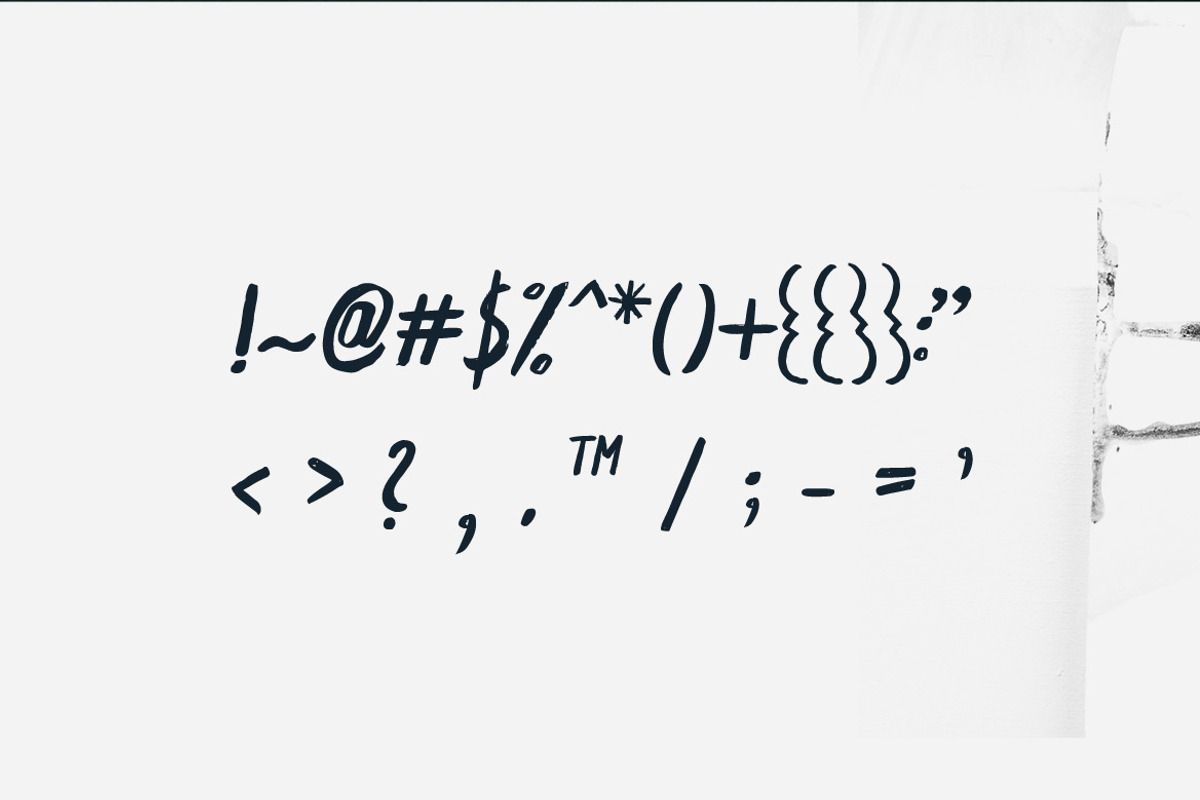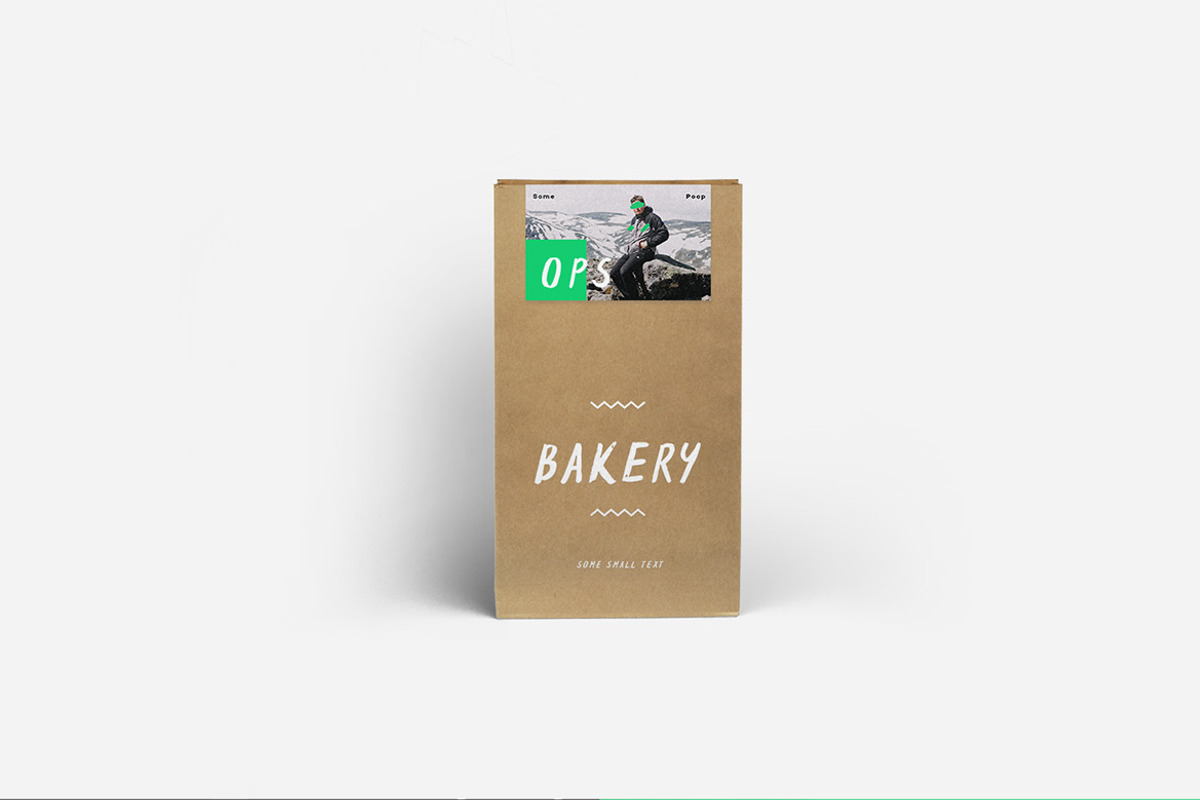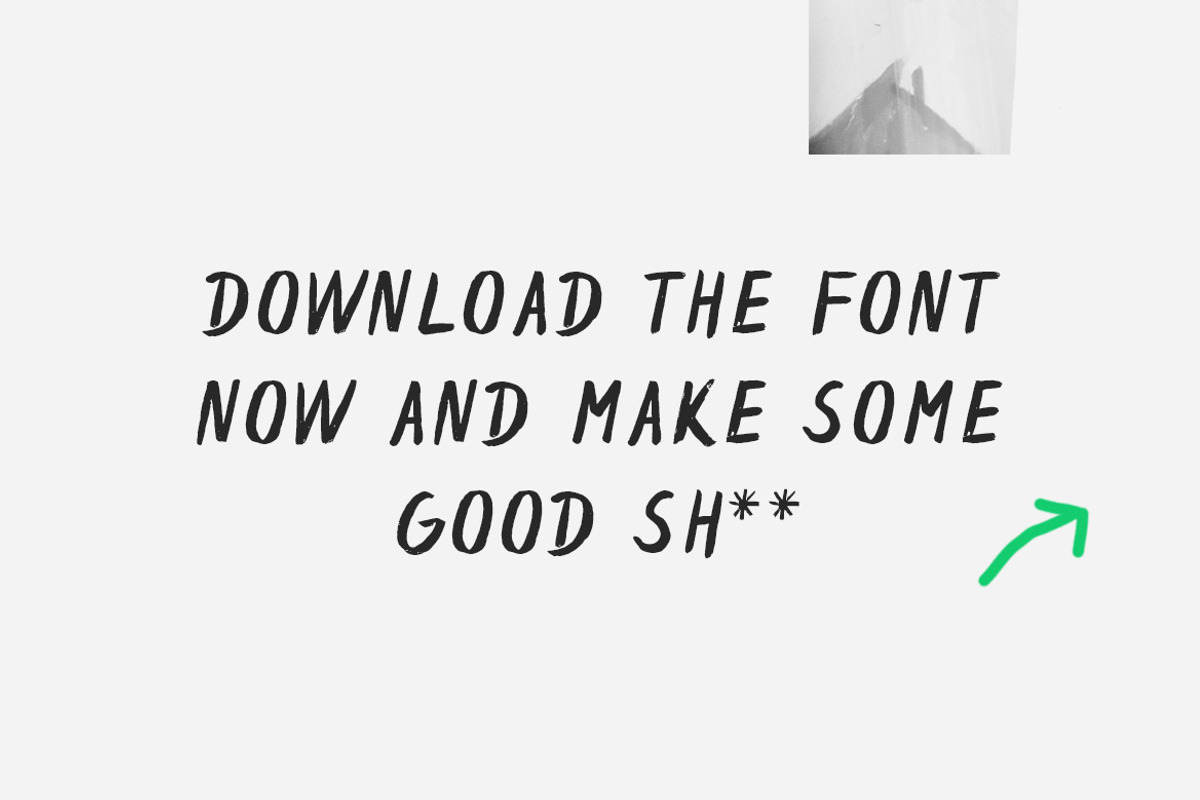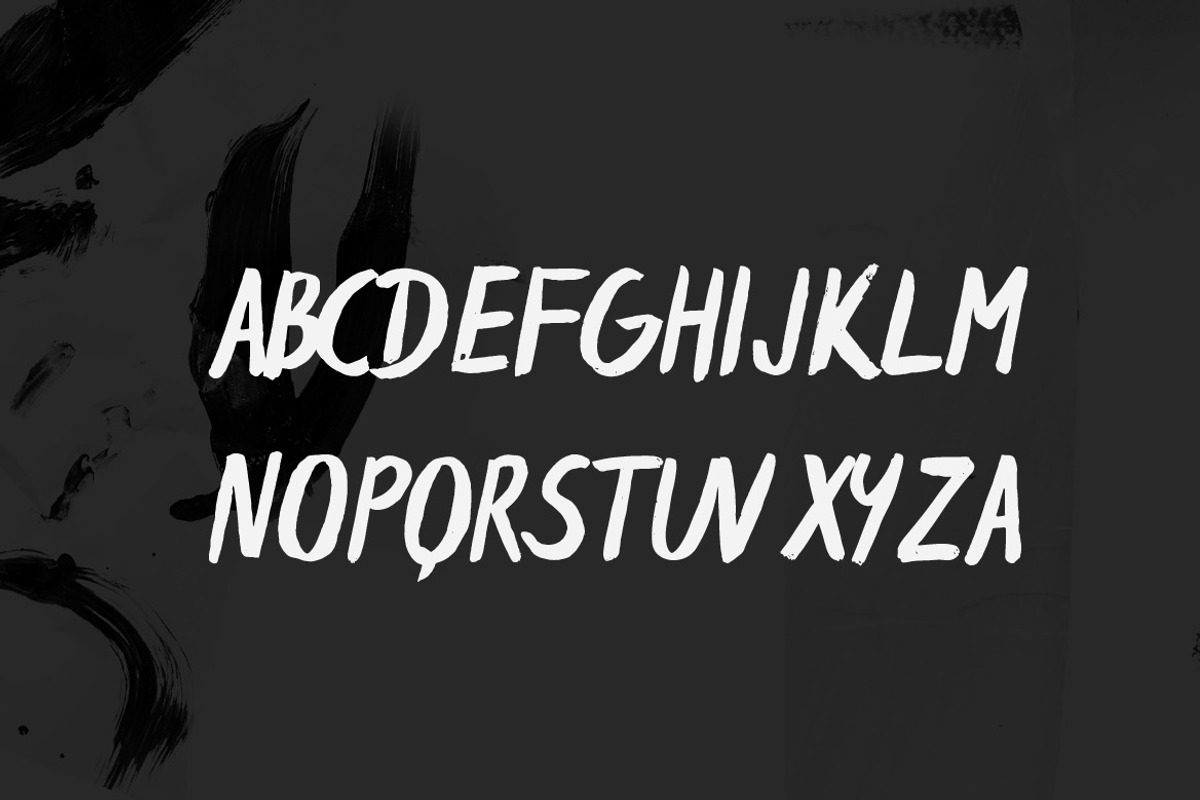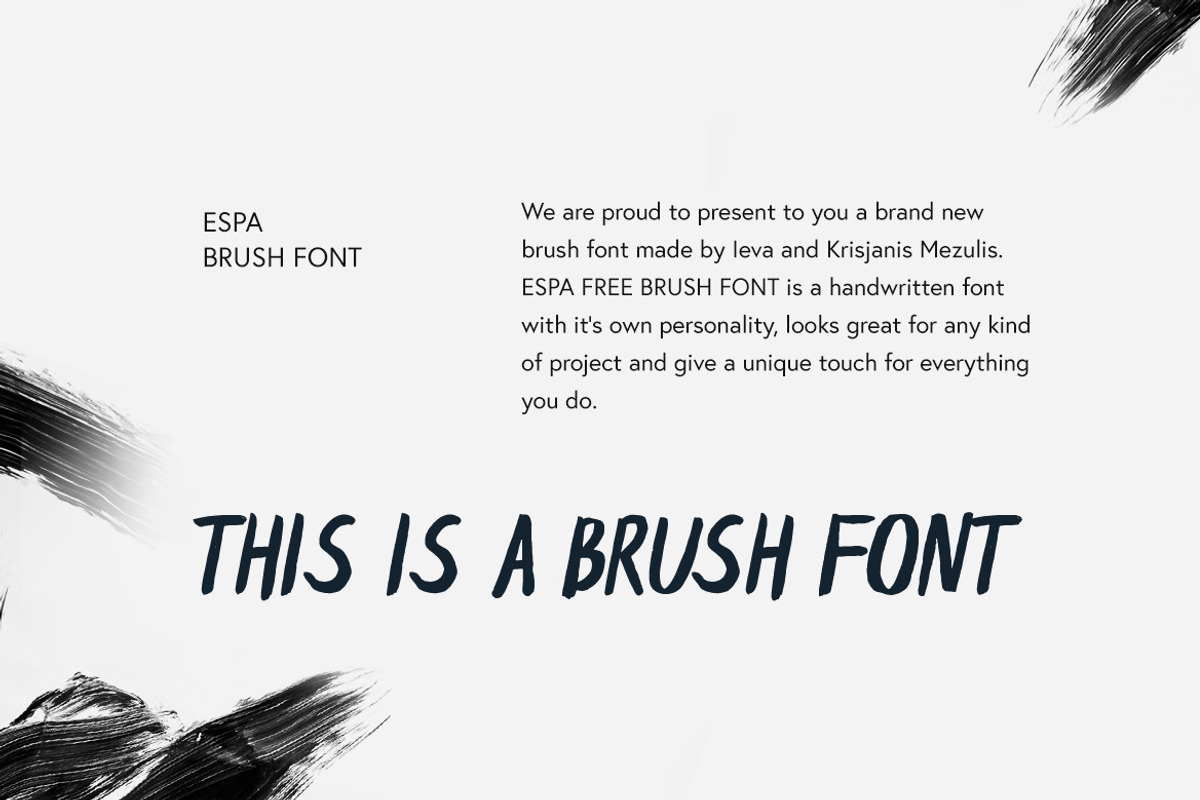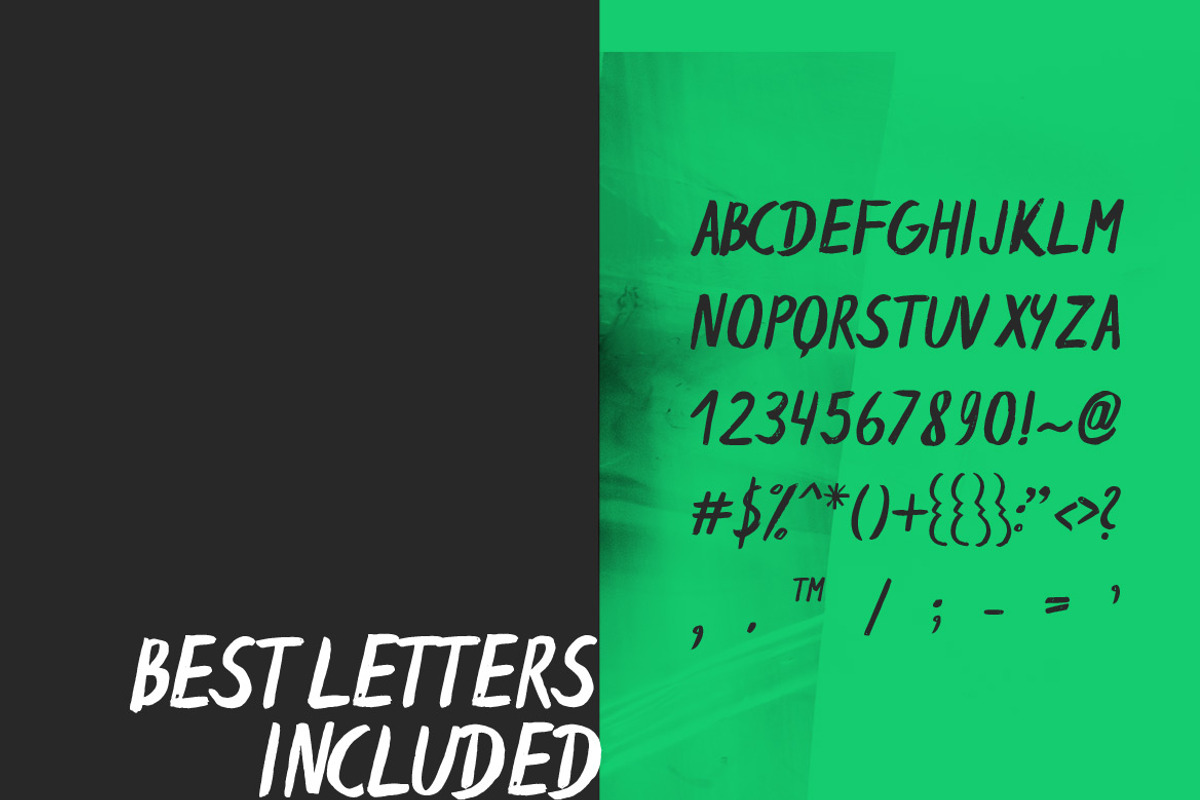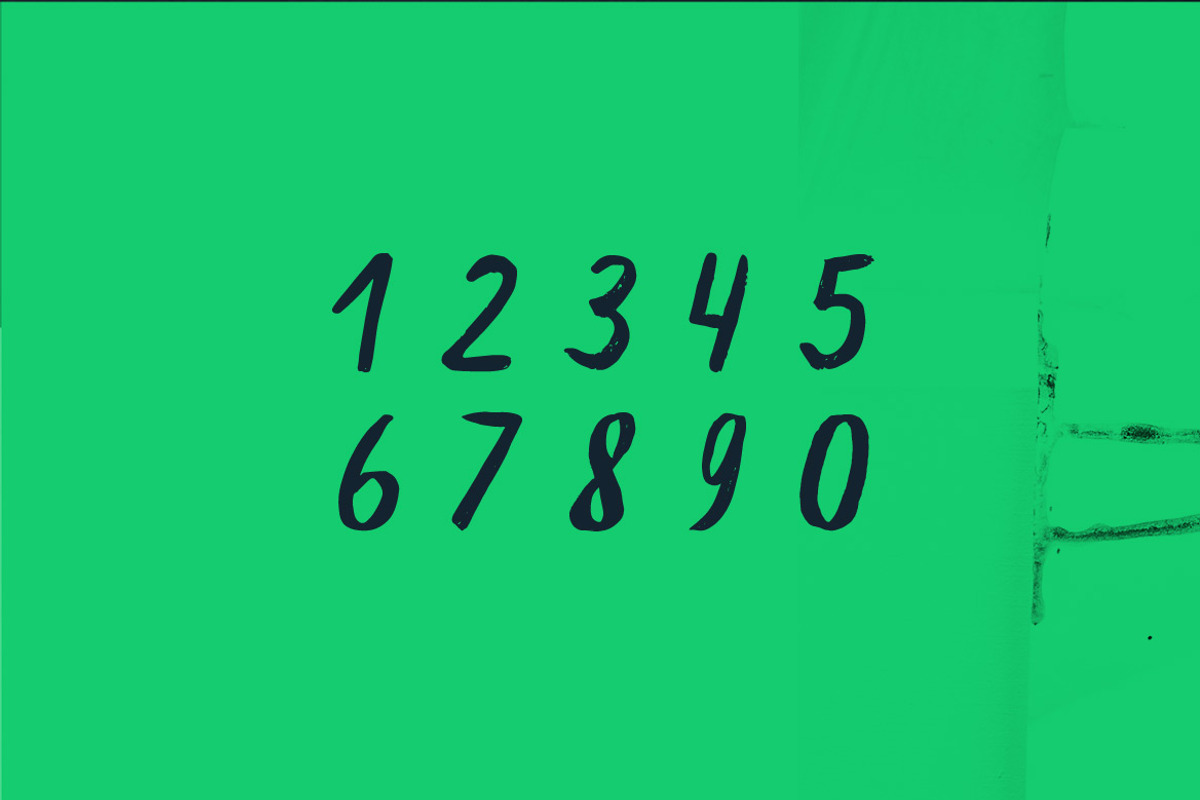
Espa Brush Font
Espa is a free brush font made by Ieva and Krisjanis Mezulis. It features a brush made feel and look. The font suits best big headlines and gives them a personal touch.
Espa Brush Font by Wild Ones fits naturally into Branding, posters, packaging, typography.